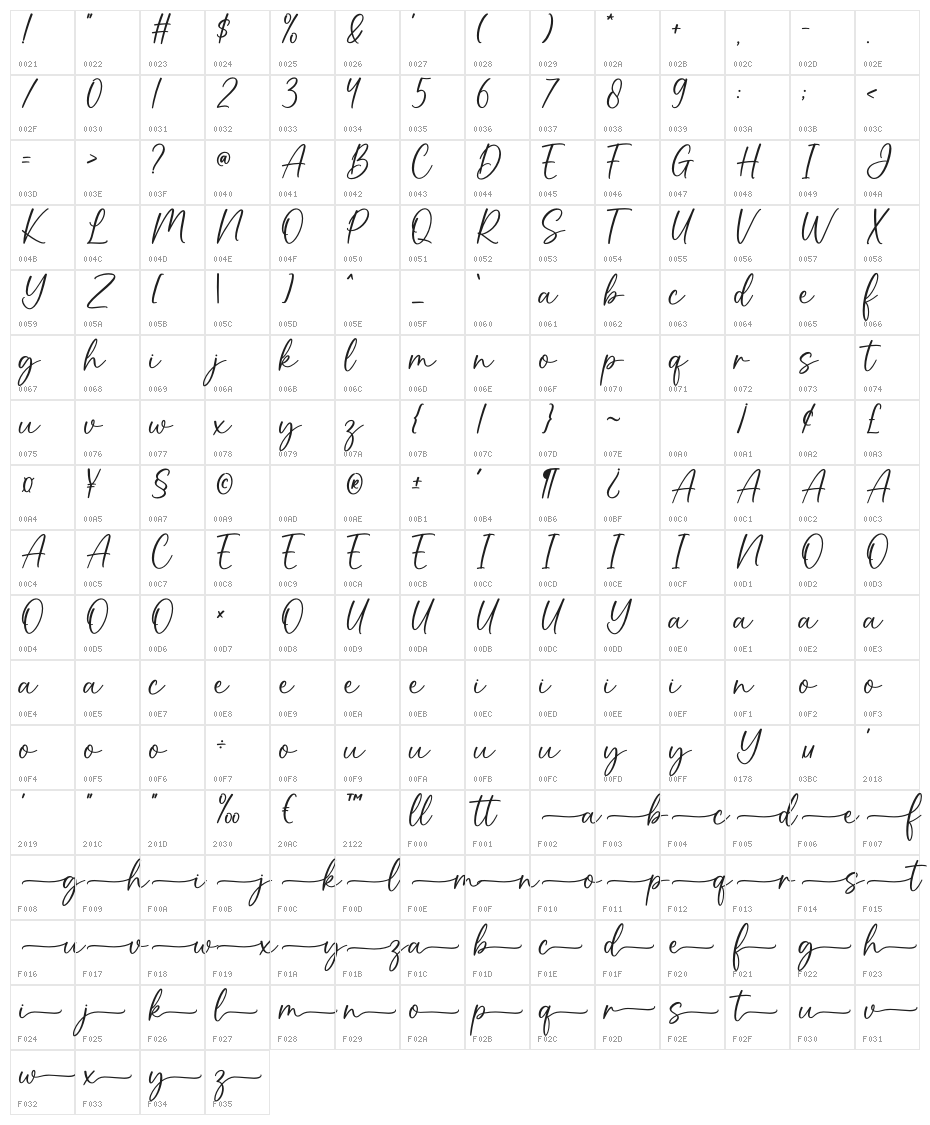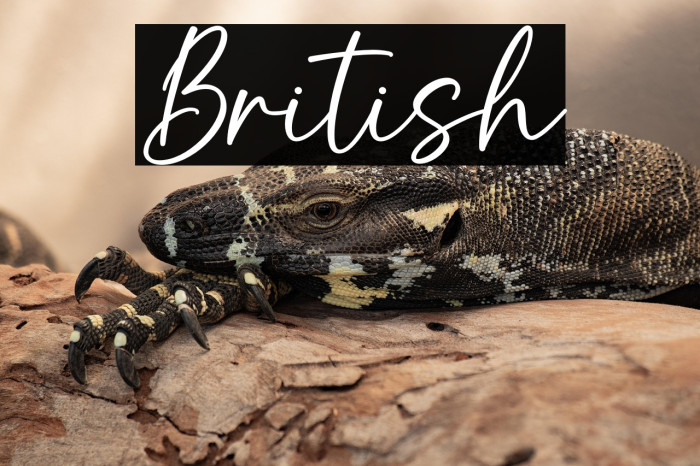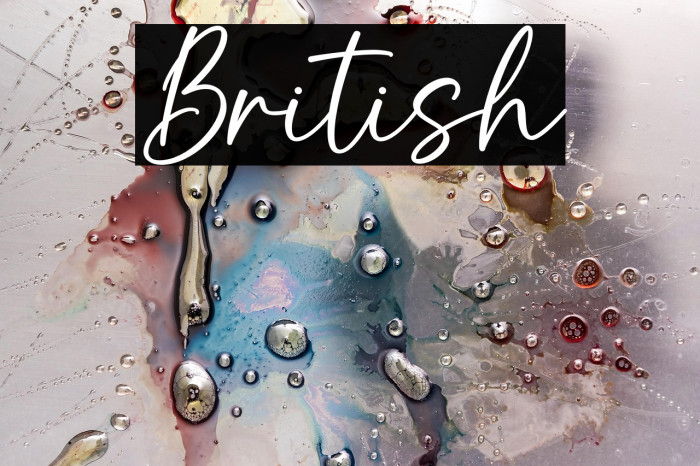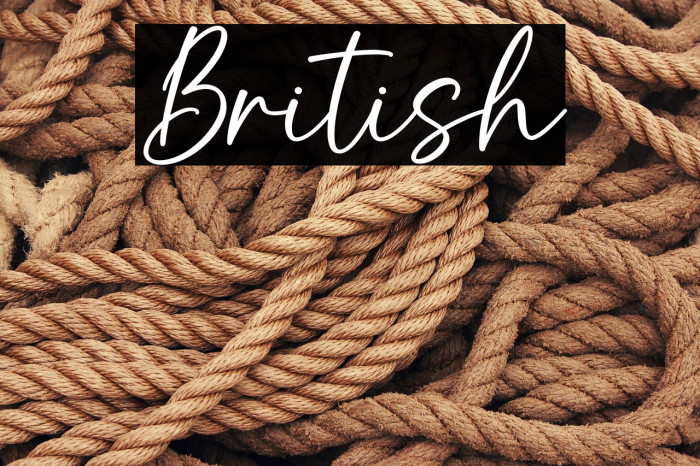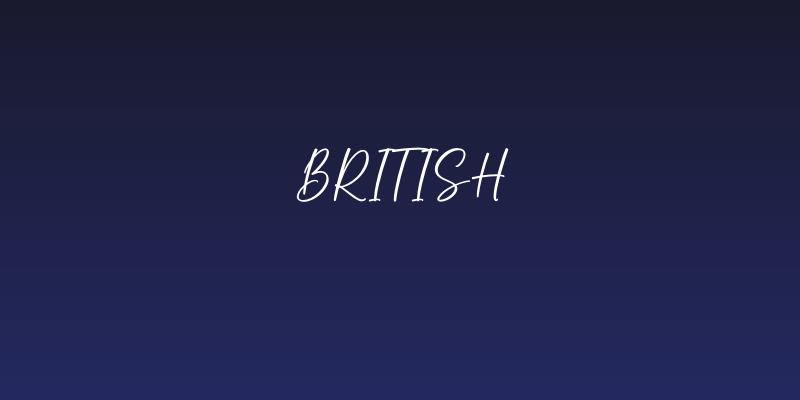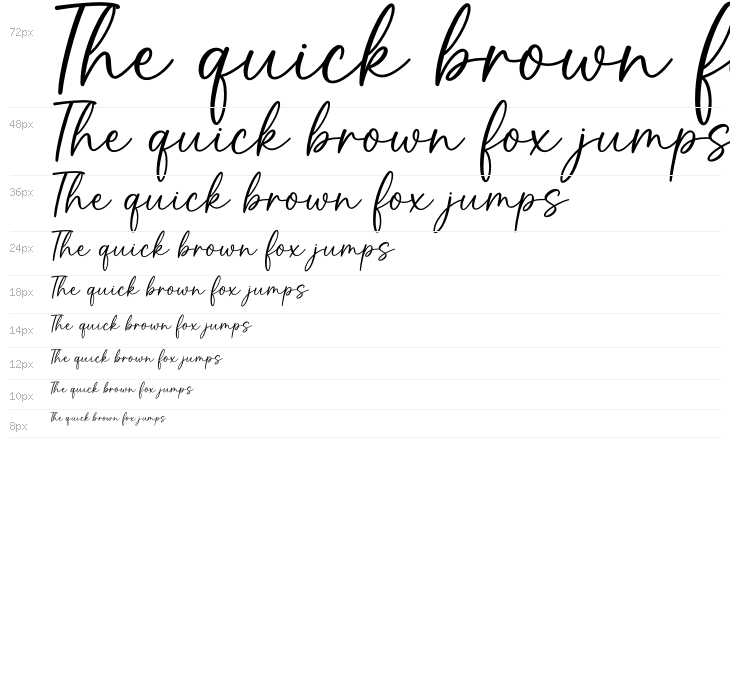
British Font
British Description
This font exudes a casual yet elegant handwritten style, characterized by its fluid and connected letterforms. The uppercase letters maintain a consistent height, while the lowercase letters exhibit a charming looped design, adding a touch of sophistication. The numerals are clear and legible, complementing the overall aesthetic. Special characters are seamlessly integrated, maintaining the font's cohesive appearance. The strokes are smooth and slightly varied, giving it a natural, personal touch that is both inviting and stylish.
| Use Case | Logos, Headlines, Invitations |
| Proposed Projects | Ideal for wedding invitations, personal branding, greeting cards, and social media graphics. |